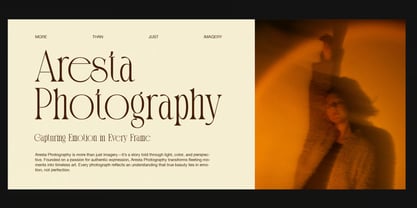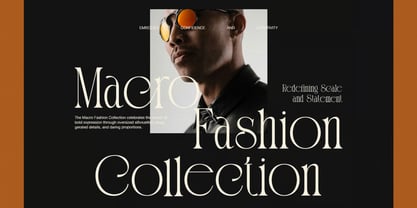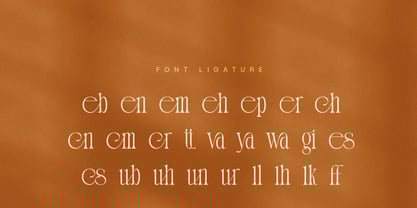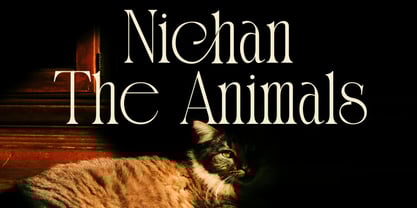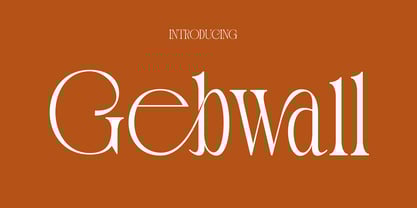
Gebwall
by Hasnat Studio
The Gebwall Font Family was designed by Hasnat Khan and published by Hasnat Studio. Gebwall contains 1 styles. More about this family
Gebwall is a modern, elegant serif typeface designed for creators who appreciate timeless sophistication and artistic flair. With its refined curves, balanced proportions, and graceful contrast, Gebwall delivers a high-end style suitable for luxury branding, fashion editorials, packaging design, and creative portfolios. Its polished letterforms and smooth visual flow make every word feel thoughtfully crafted and visually captivating. Crafted with a blend of classic serif beauty and modern minimalism, Gebwall features elegant alternates, unique ligatures, and tall, expressive letterforms that remain clean and readable at any size. Whether used for logos, invitations, magazines, jewelry branding, or interior design concepts, this font transforms simple layouts into refined, premium compositions full of personality and charm. ✿ Key Features: - Uppercase & Lowercase: Beautifully crafted characters with refined contrast. - Numerals & Punctuation: Complete set for professional-quality typesetting. - Alternates & Ligatures: Enhance creativity with elegant stylistic options. - Multilingual Support: Includes a range of international characters. - Professional Compatibility: Works perfectly with Adobe and Microsoft software. ✿ Perfect For: - Luxury Branding & Logo Design - Fashion Editorials & Magazines - Product Packaging & Labels - Creative Portfolios & Interior Design Themes - Invitations, Jewelry Branding & Promotional Content - Digital Designs & Social Media Graphics. Elevate your visual work with Gebwall—a luxurious serif typeface that combines sophistication, emotional warmth, and modern elegance to create timeless and unforgettable designs.
Gebwall